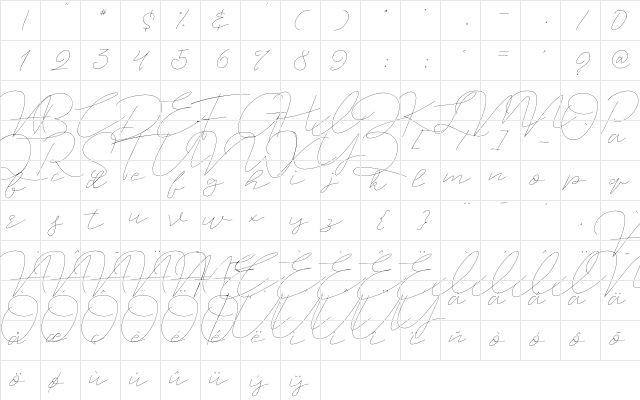
Jet Seat Script Regular
Regular · Apon & Stipline Co Teuku Bahraini ·
Foundry Apon & Stipline Co
FoundryApon & Stipline Co
DesignerTeuku Bahraini
Design Context for Jet Seat Script Typeface
Jet Seat Script flows with the natural rhythm of handwritten lettering, making it ideal for designs that call for warmth and personal expression.
Font Pairing: Combine Jet Seat Script with a simple geometric sans for maximum contrast — the tension between flowing curves and clean structure is a classic typographic pairing.
Pro Tip: Pair Jet Seat Script with a clean sans-serif for supporting text. The contrast between fluid script and geometric structure creates an elegant typographic hierarchy.